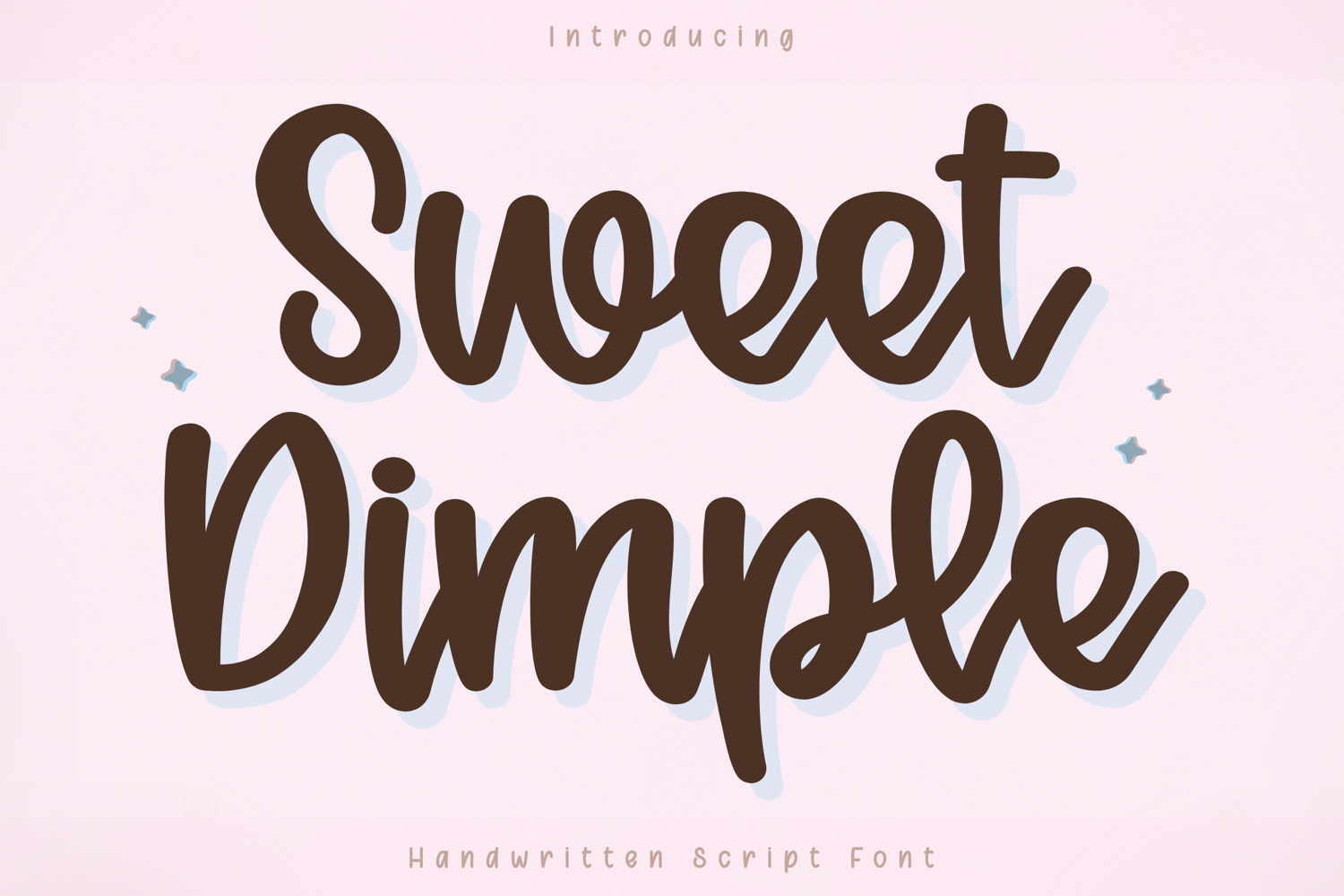
Sweet Dimple - Handwritten Script Font
Sweet Dimple – Handwritten Script Font
Sweet Dimple is a cute and friendly handwritten script font designed to bring a soft and approachable feel to your creative projects. With its smooth curves and rounded letterforms, this font creates a natural handwritten look while maintaining excellent clarity and readability.
Carefully crafted for versatility, Sweet Dimple works beautifully across a wide range of applications—from Cricut cutting projects to digital planners, branding, and social media content. Its clean and consistent strokes ensure smooth performance for both writing and cutting, making it ideal for everyday creative use.
Cricut and cutting projects
Digital planners
Stickers and printable designs
Branding and logos
Social media graphics
Sweet Dimple is designed with smooth, rounded strokes and balanced spacing, making it easy to use for both beginners and professional designers.